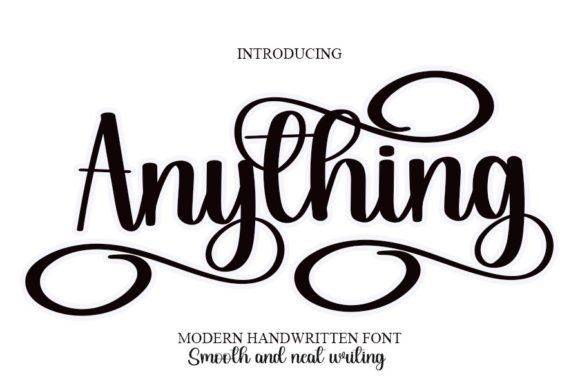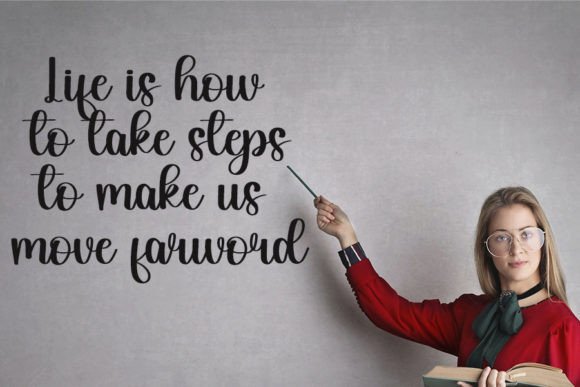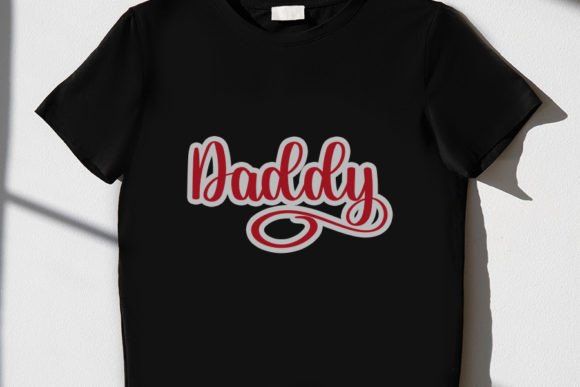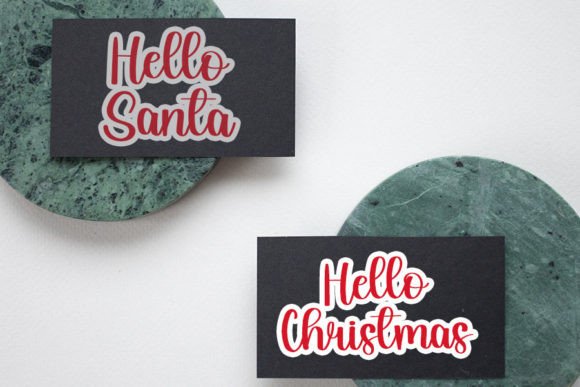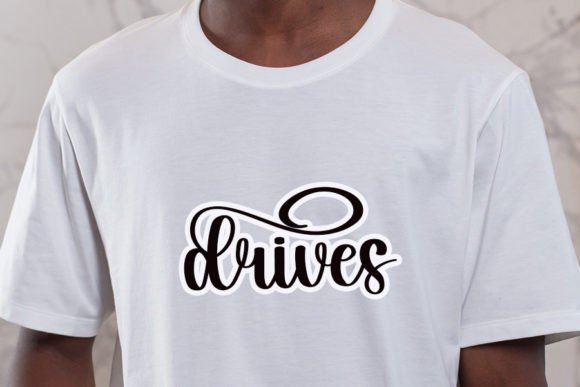
About Anything Font
Anything is a cool handwritten font that brings a clean, modern touch to your creative designs. Inspired by timeless calligraphy, this font delivers a spotless form that is stylish and easy to read. Each letter is thoughtfully crafted, giving your projects a polished yet organic look.
With strokes that are not too thin and not too thick, the Anything font download provides balance and variation across characters. Whether you’re creating a logo, designing a quote layout, or preparing a stylish invitation, this font adds a sense of charm and modern flair to every project.
Where to Use the Anything Font
The Anything font is highly versatile and fits a wide range of design applications, including:
Logo Design – Add a personal signature-like look to your brand
Social Media Posts – Make quotes and captions visually stand out
Product Packaging – Create a handcrafted feel for artisanal goods
Website Headers – Bring a stylish accent to your site
Wedding Invitations – Soft and romantic script for formal events
Merchandise & Apparel – Suitable for custom T-shirts, mugs, and more
Digital Planners – Ideal for iPad or GoodNotes templates
No matter the platform or medium, the Anything font download helps your work look both polished and approachable.
Style: Handwritten Script
Design: Balanced, clean, and modern
Why Choose Anything Font?
Designers love Anything font for its ability to blend clarity with character. Its handwritten form brings warmth to any layout without sacrificing professionalism. If you’re looking for a modern font that’s stylish yet functional, Anything font download is a must-have addition to your type collection.